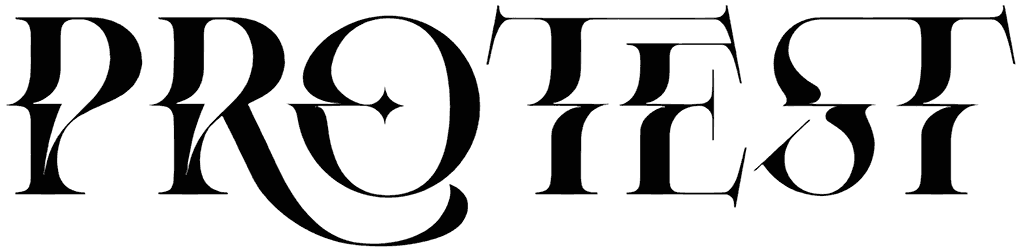
Protest Font
If you’re one of those who seek the most paradoxical designs to set themselves apart, you don’t want to miss today’s logotype font of RB. After all, it’s pretty rare to come across such a fancy font, designed also as a distorted font for more visual significance.
The idea is that this glitch-like effect conflicts with all that elegance. How wild is that? Those unique capitals will be great for silverware brands and digital marketing purposes, even without the numbers.